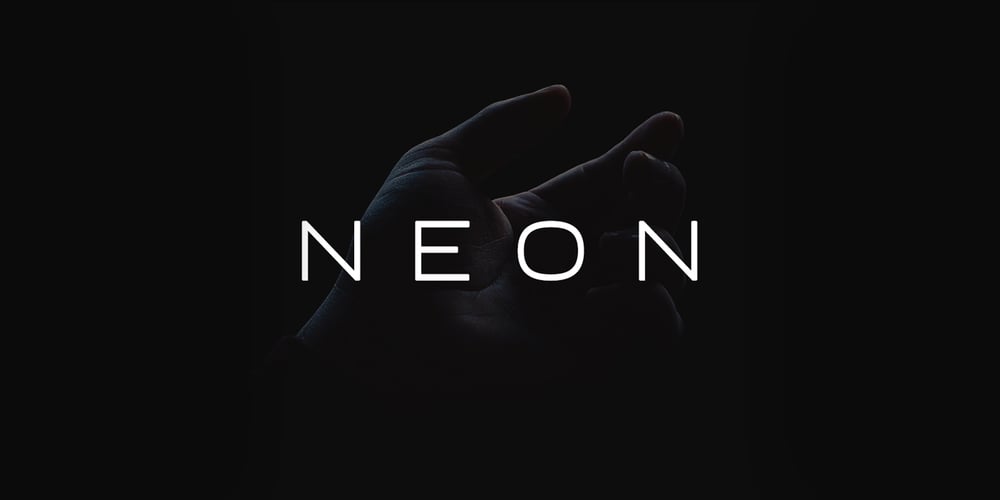
Neon
Neon font
Neon Font Family was designed by Jean Johnson and published by Designova. Neon contains 16 styles and family package options. NEON is a unique minimal & modern Sans Serif / Display / All Caps typeface that defines a class of its own. NEON is dedicated to display and branding purposes, where this typeface can be a perfect choice for creating logotypes, branding, headlines, corporate identities, marketing materials for web & print as well as any type of minimal designs.Please see the included demographics to get an idea about the capability of this typeface when used for branding and marketing material design.